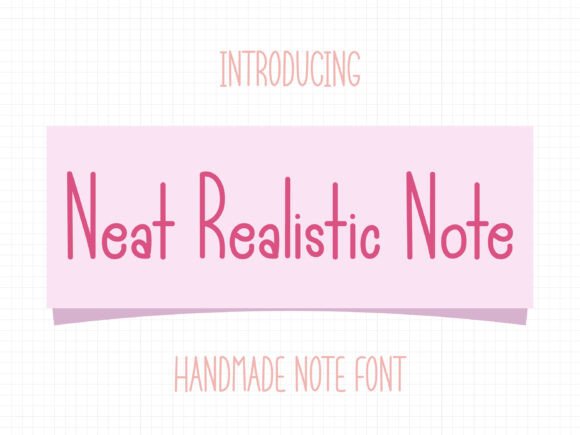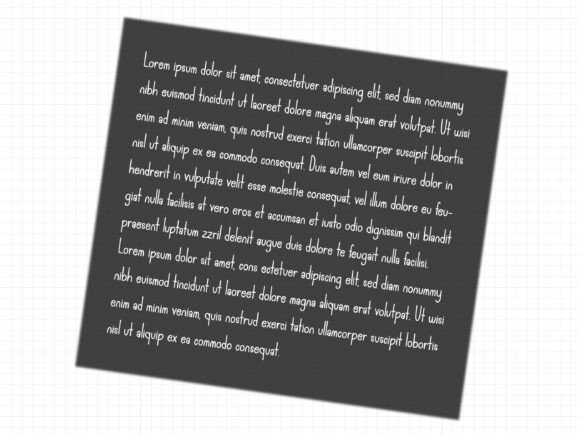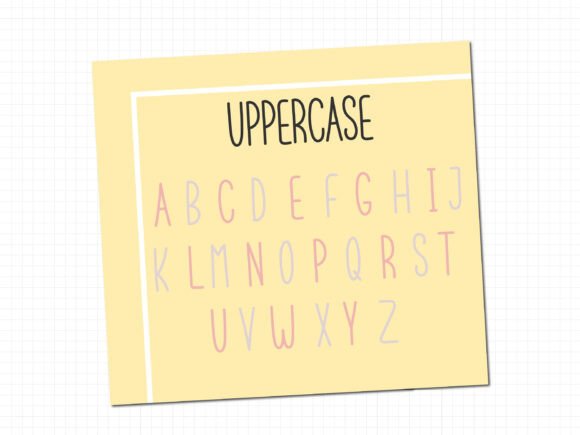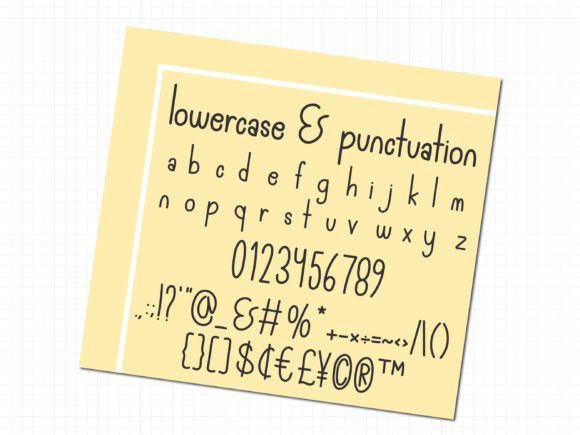
Neat Realistic Note Font
About the Neat Realistic Note Font
Experience the unique personality of Neat Realistic Note Font, a font designed for impact. Neat Realistic Note is a trendy font that has a very strong distinctive character and a handwritten font that feels warm and festive. It will add elegance and smooth letters, Daily Notes, decorations, and invitations.
Neat Realistic Note excels in projects requiring a touch of casual elegance. Ideal applications include short headlines, branding elements for artisanal products or boutiques, and invitations where a hand-crafted feel is desired. Its charm works well on packaging for smaller items or in short social media posts. However, its informal nature makes it unsuitable for large blocks of body text, lengthy documents, or user interfaces where readability is paramount.
This font’s friendly, slightly whimsical personality pairs well with clean sans-serif fonts like Lato or Open Sans for a balanced contrast, offering readability alongside the script’s charm. For a more sophisticated look, consider pairing it with a delicate serif like Playfair Display for titles, retaining the hand-written feel while adding a touch of formality. Avoid pairing it with overly geometric or stark fonts which might clash with its organic character.
The overall mood is approachable and warm, making it perfect for brands that prioritize a friendly and personable image. It is less suited to projects needing a modern, minimalist, or strictly professional aesthetic.
Neat Realistic Note Font Usage Examples
Neat Realistic Note Font Example